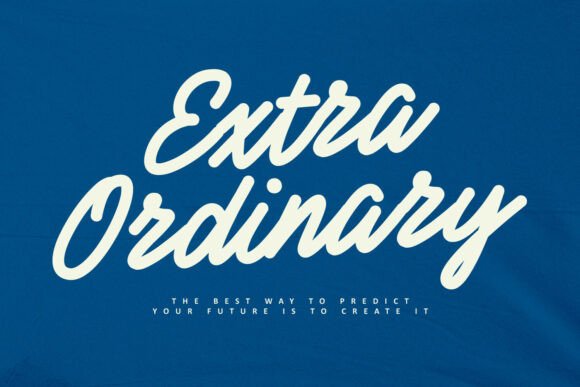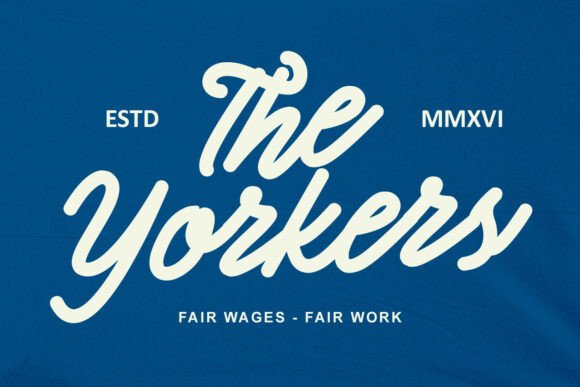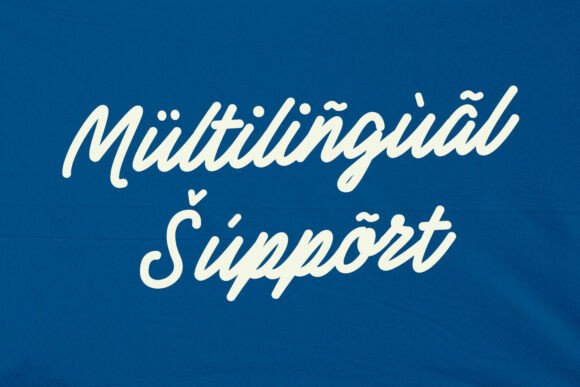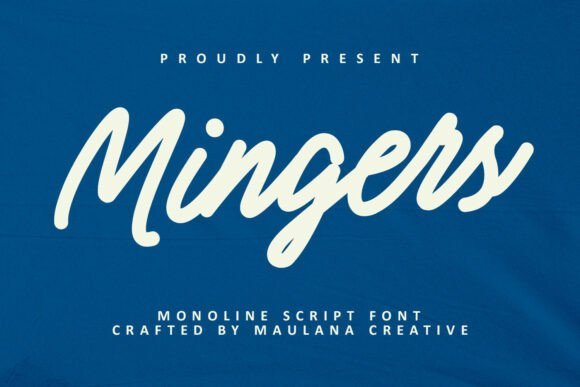
Introduction to Mingers Font
Mingers Monoline Script Font is a distinctive retro-inspired typeface that captures the charm of classic monoline lettering with a modern twist.
Featuring smooth stroke contrast, playful characters, and a touch of ligatures and alternates, it adds extra flair to your creative projects Supporting over 100 languages, Mingers offers versatility for global design needs.
Mingers Font offers exceptional quality and versatility, making it a valuable addition to your design toolkit. Whether you’re creating for personal projects or commercial use, Mingers Font delivers professional results.